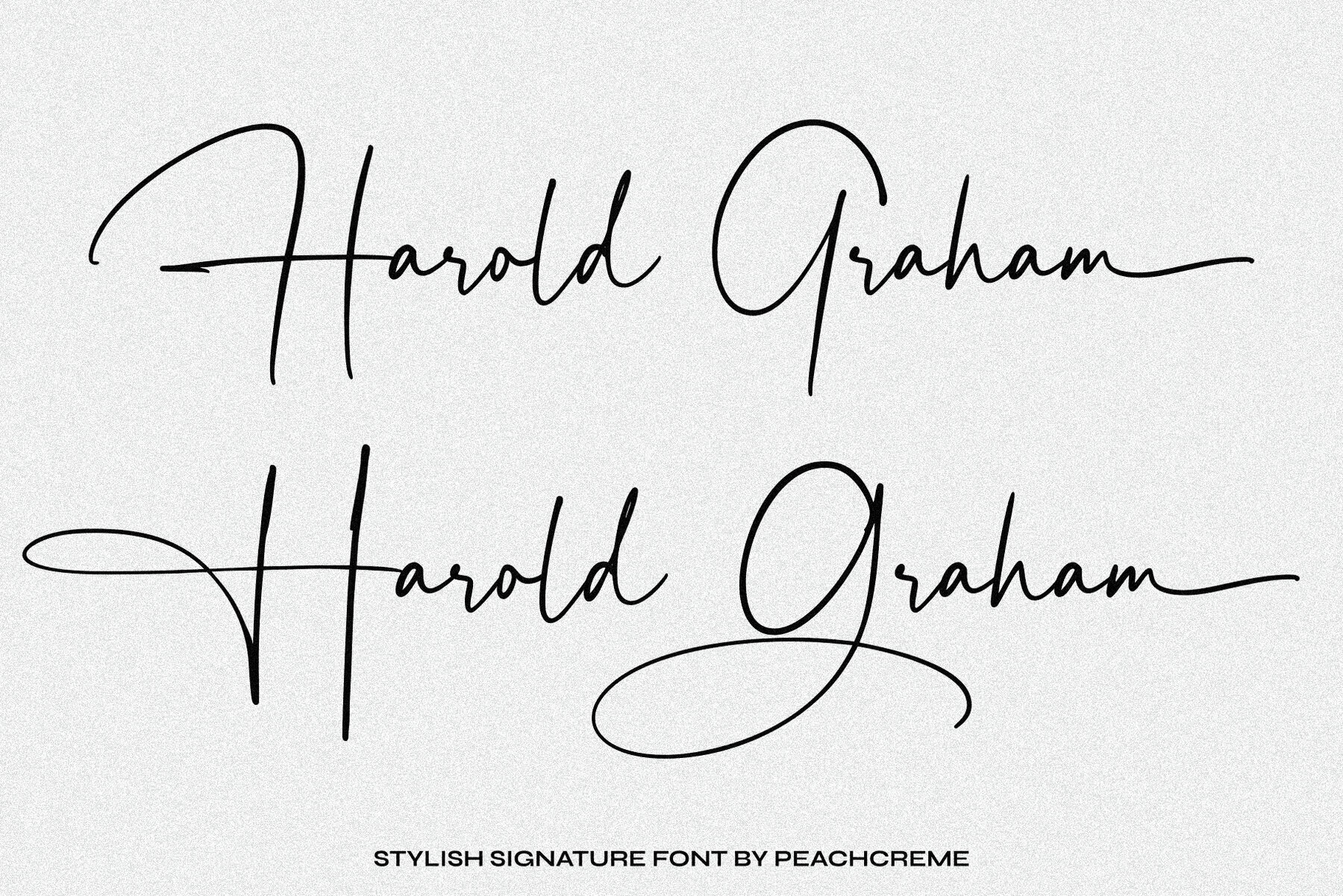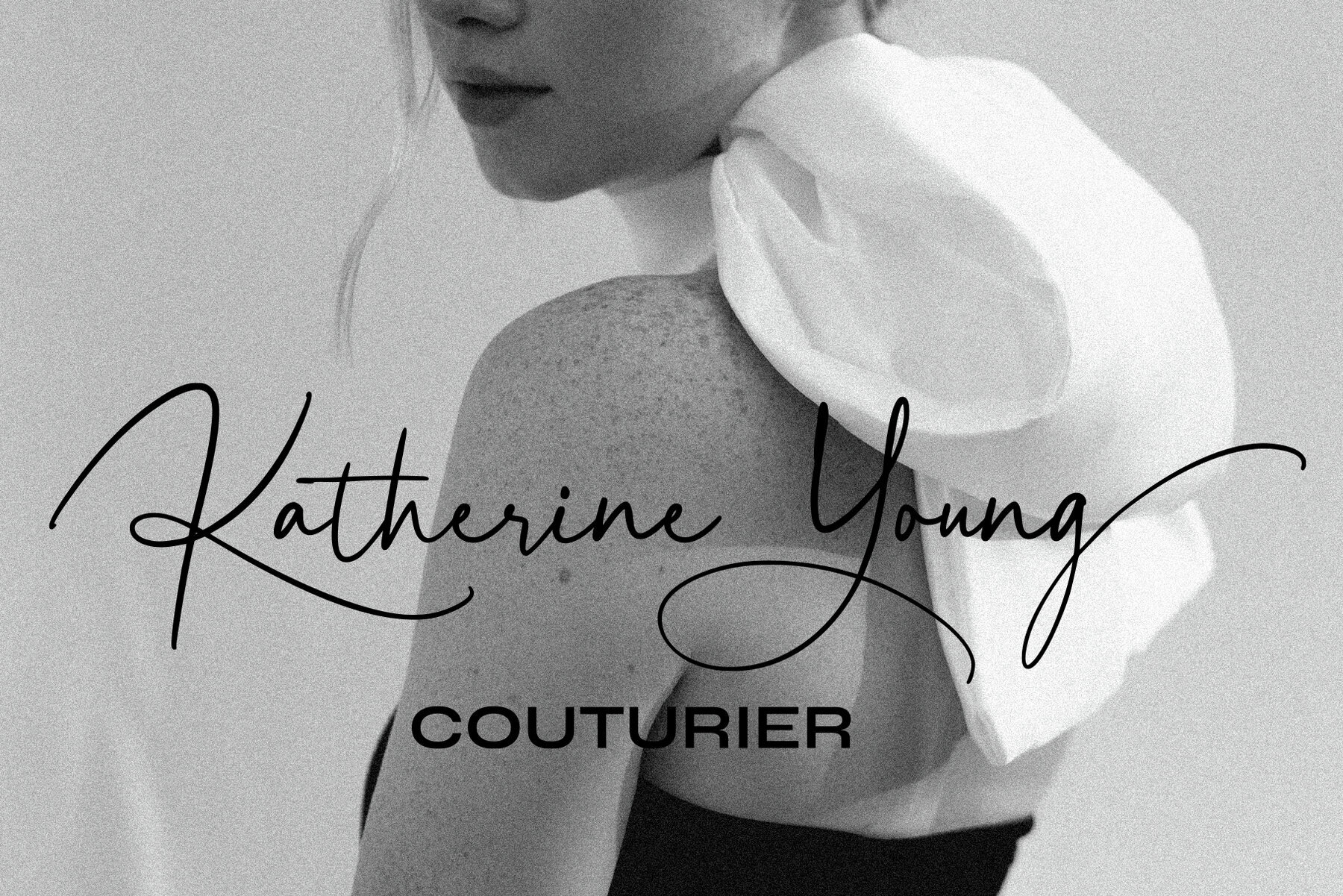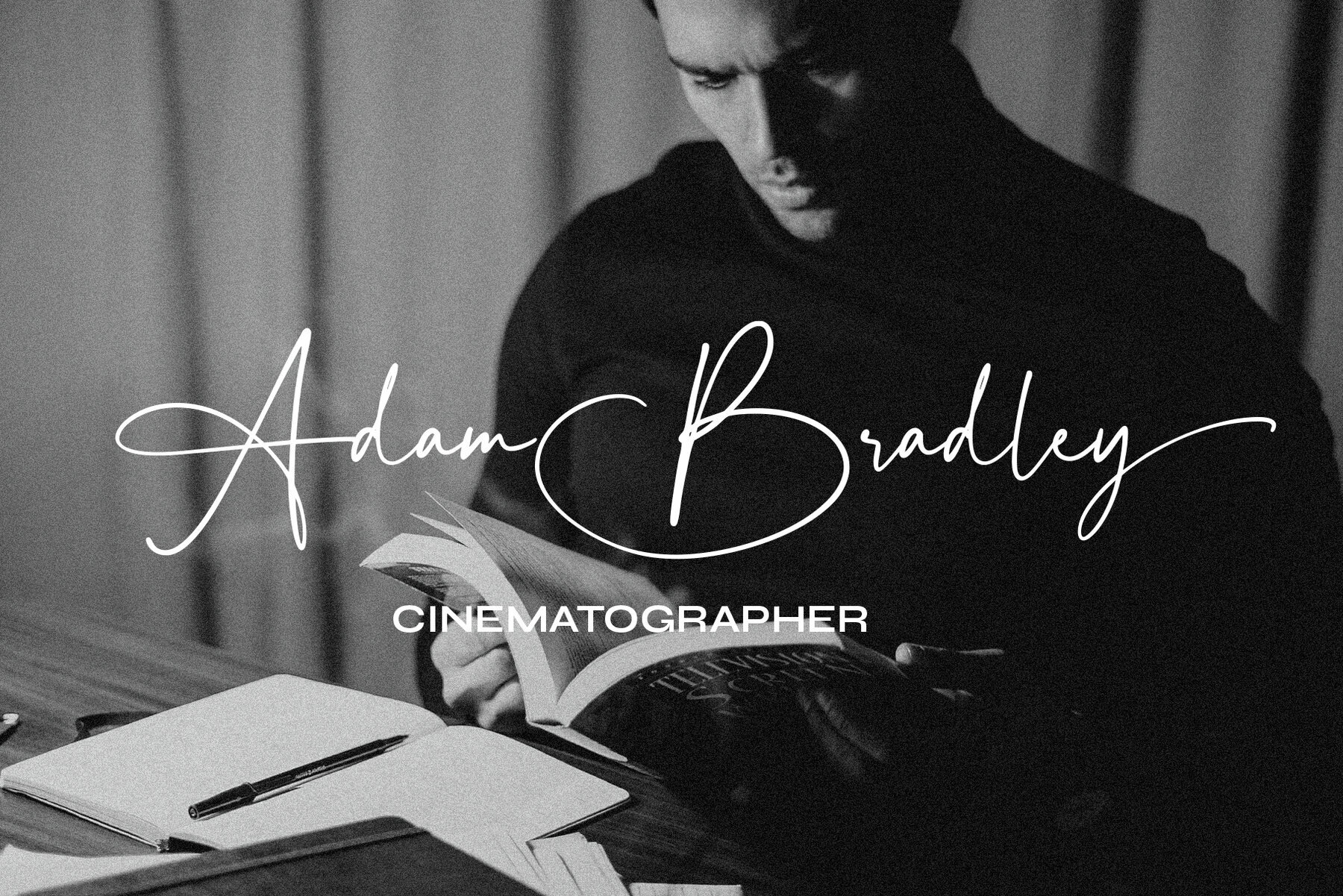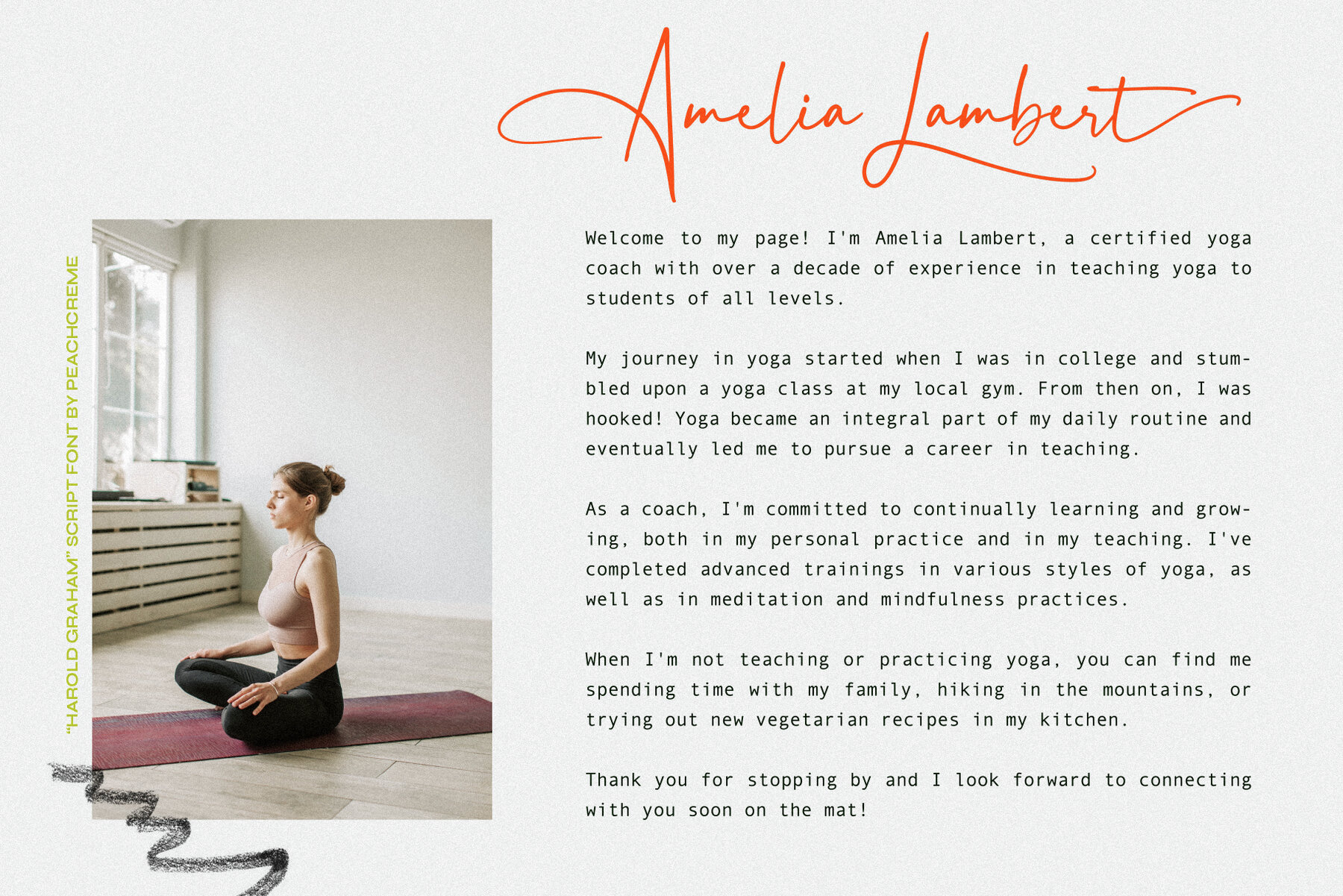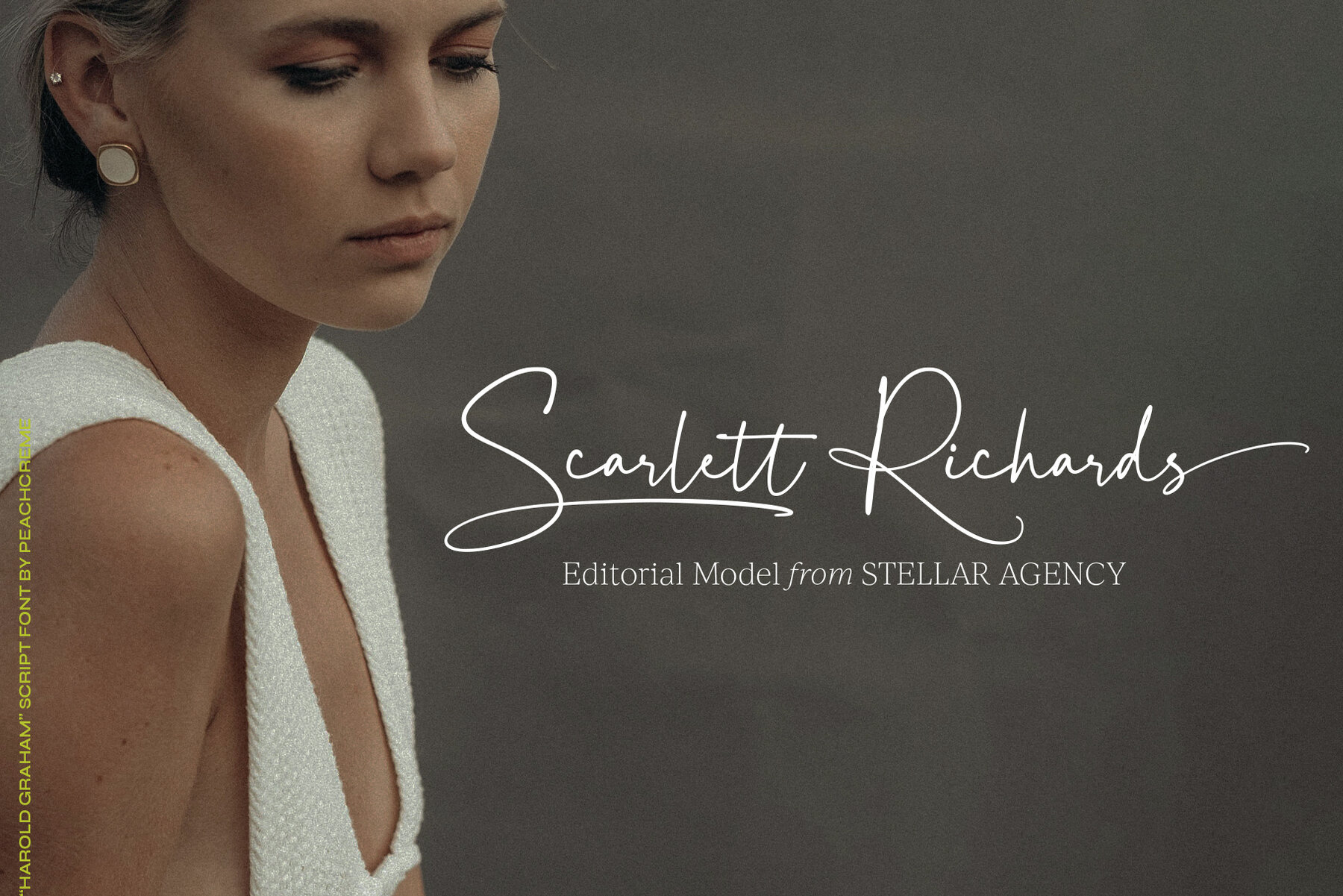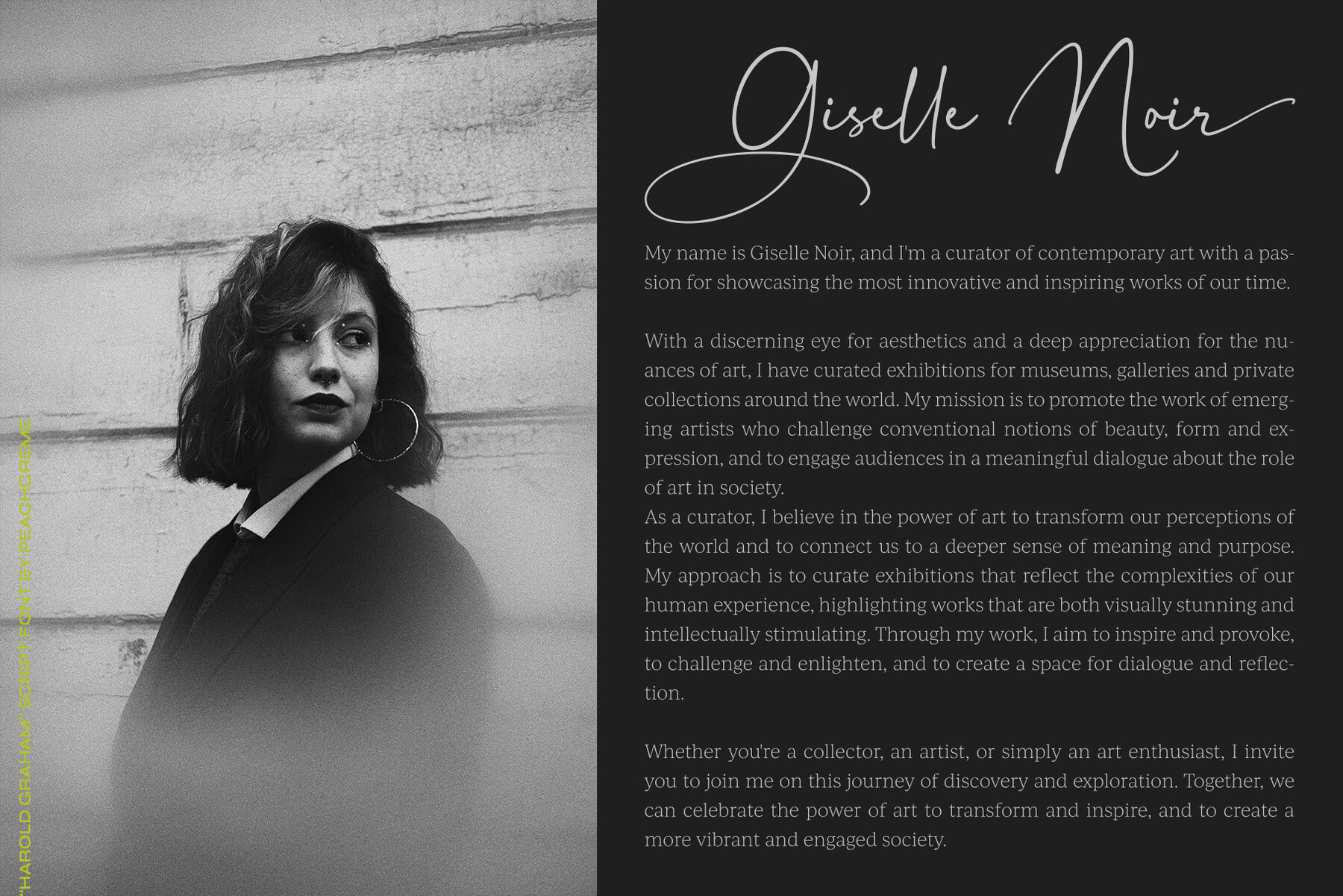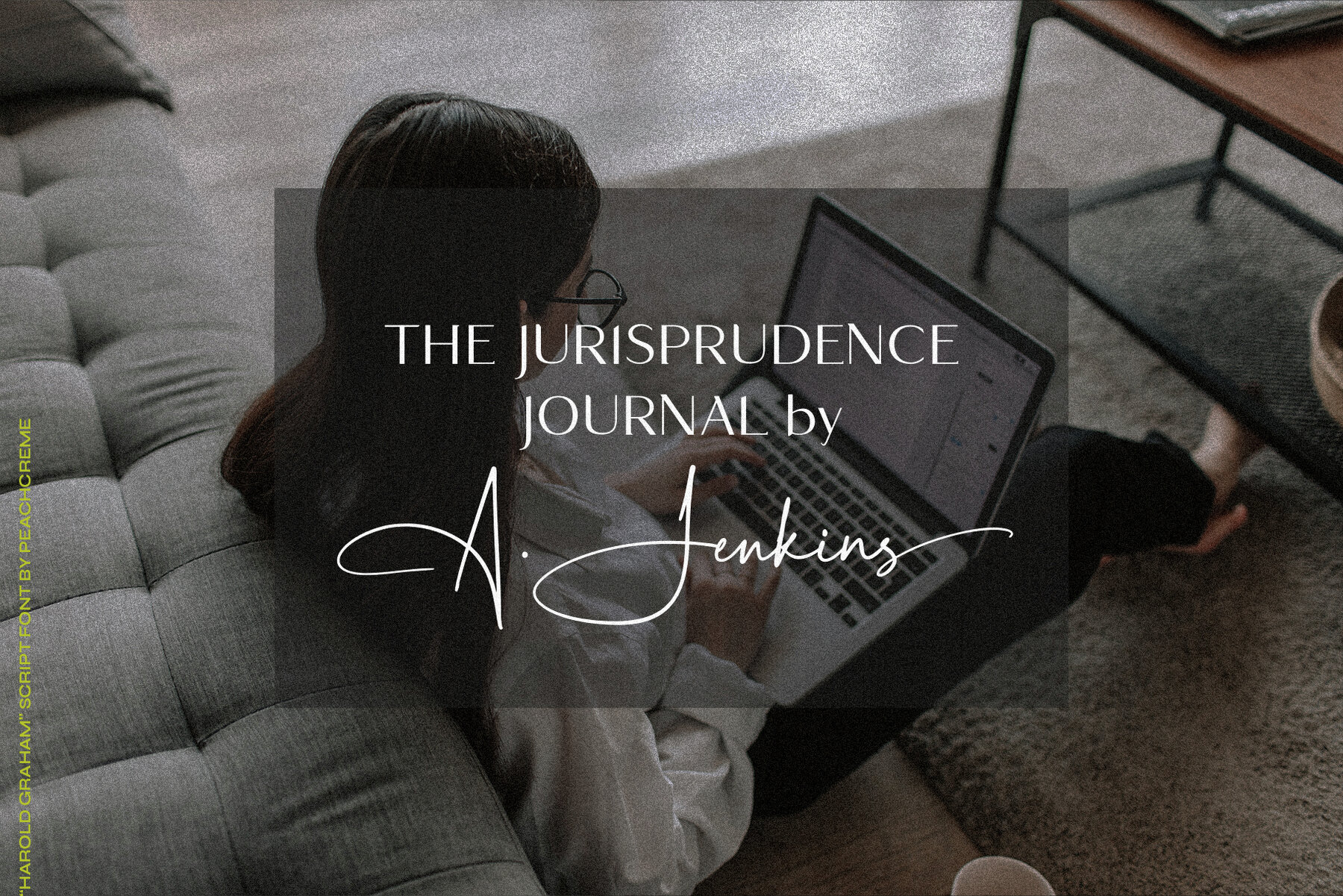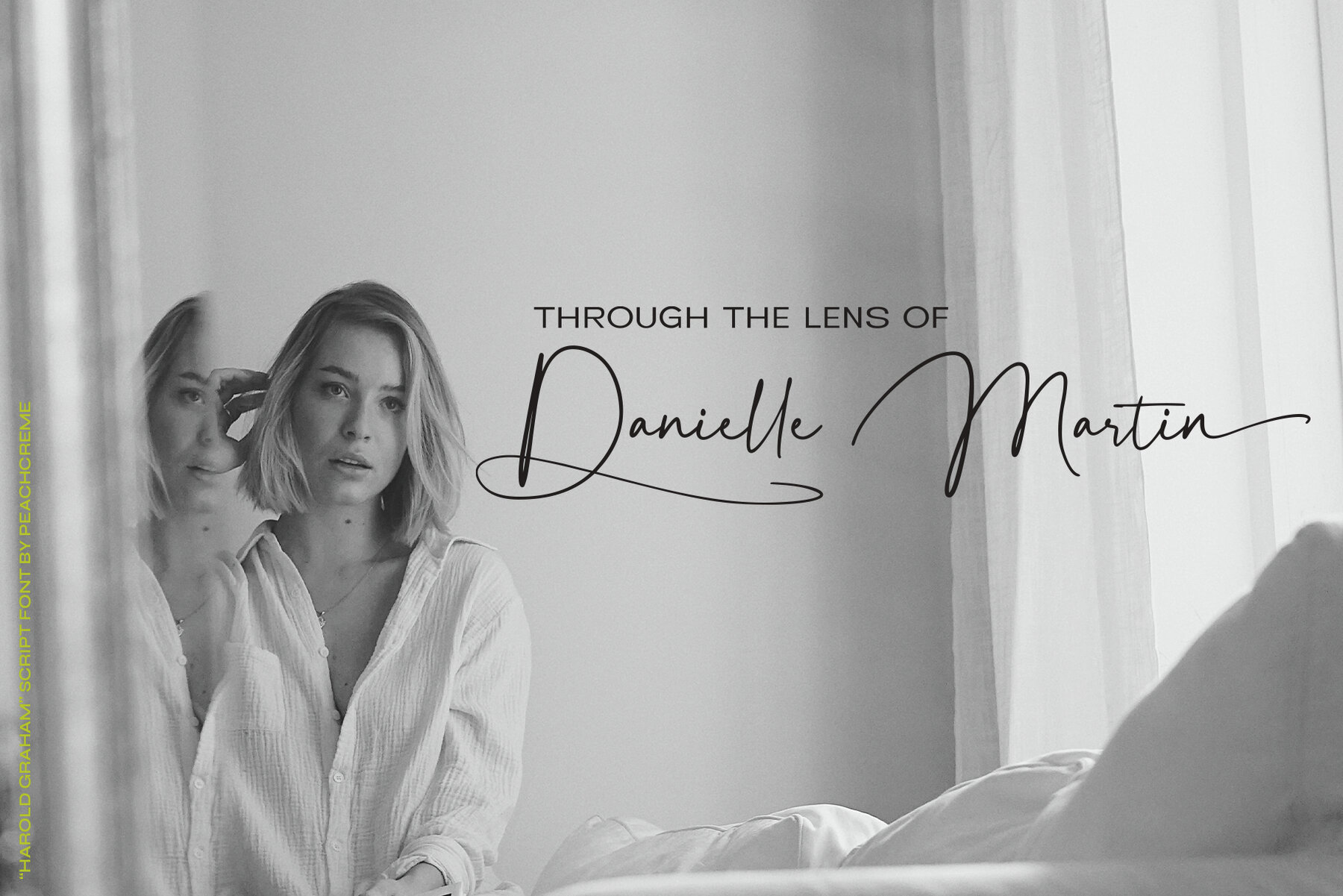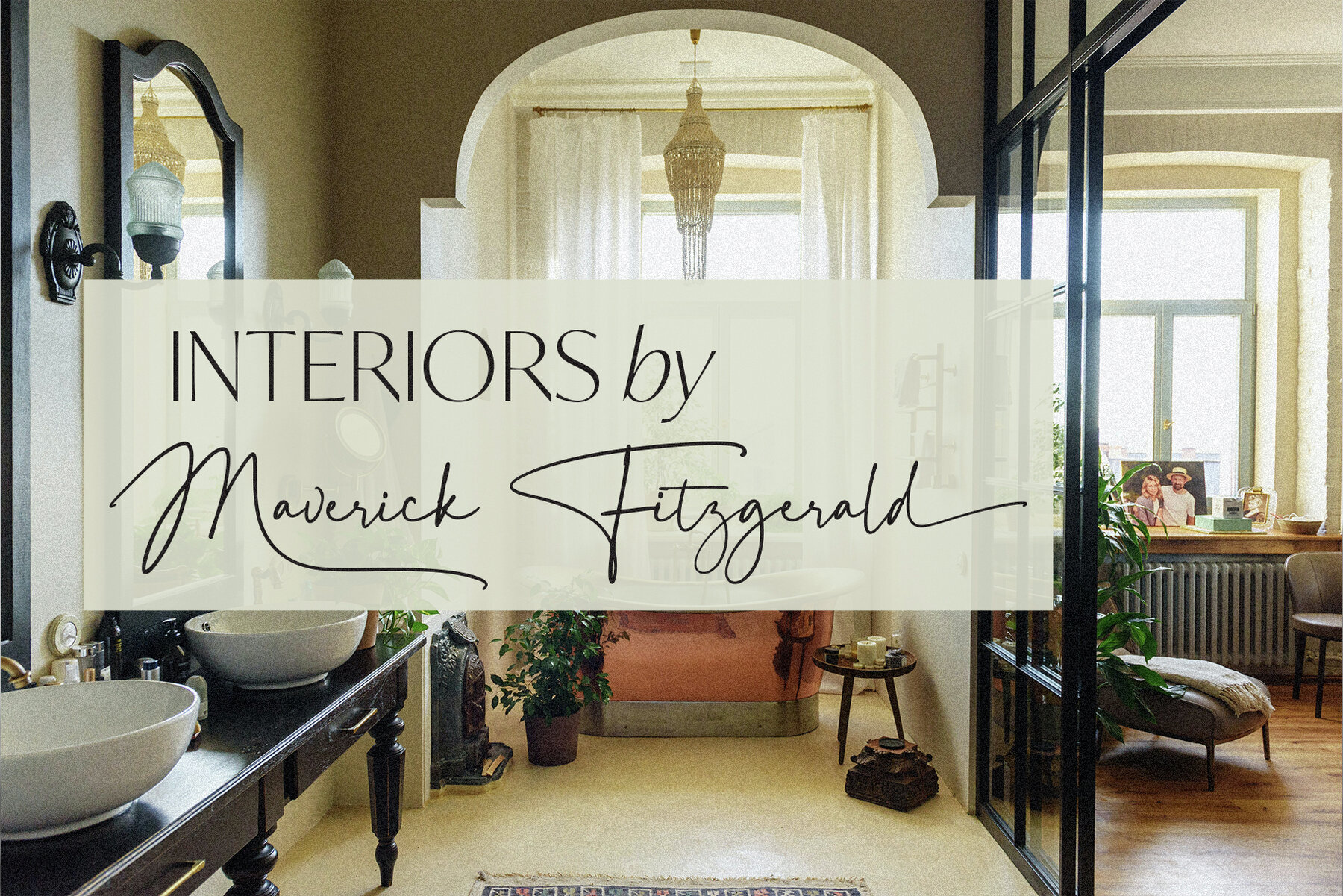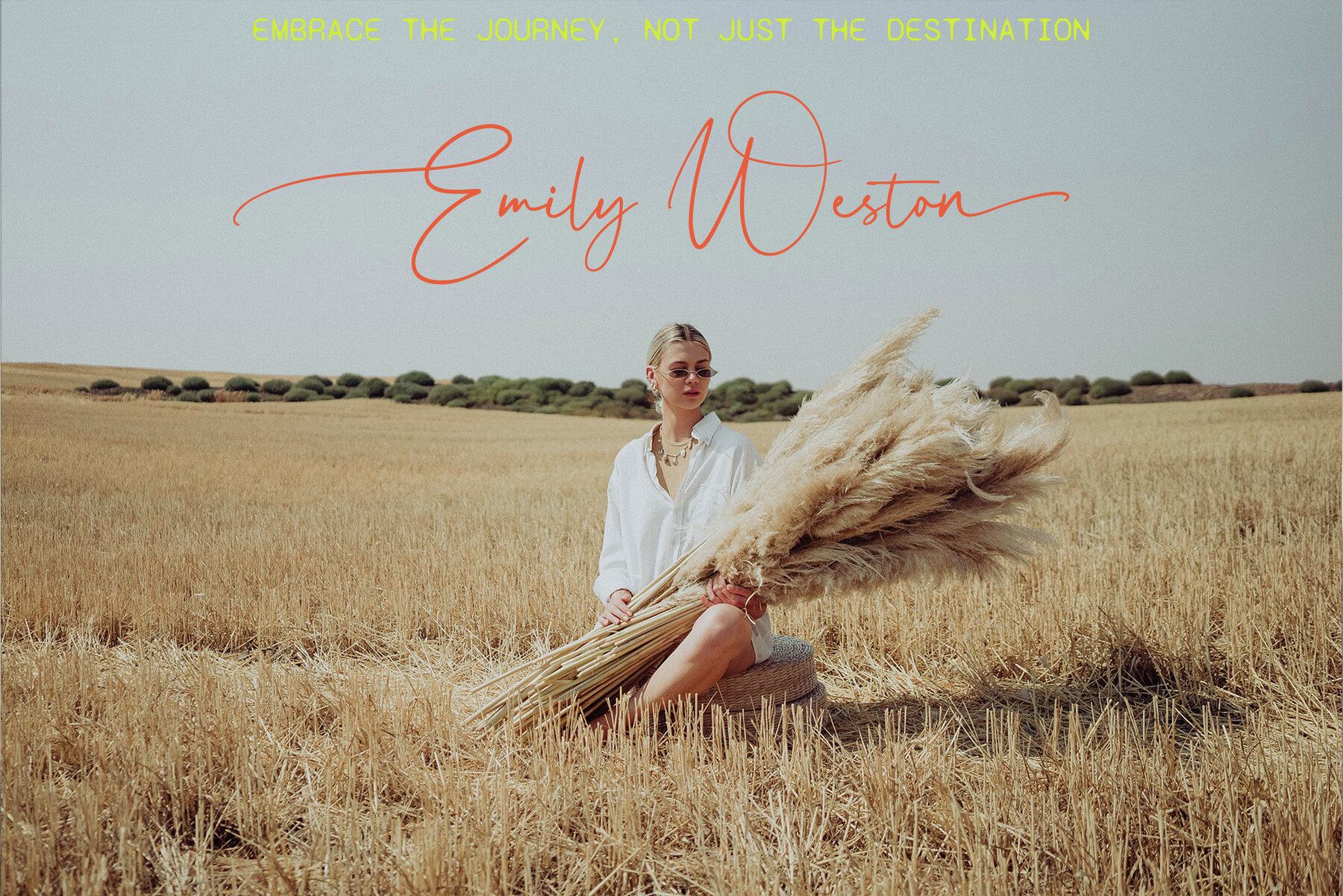
Harold Graham Font
Harold Graham
"Harold Graham" is a meticulously designed font that exudes subtle elegance and sophistication. Featuring unique alternative uppercase letters and swash-ending lowercase forms, this typeface provides a tasteful way to customize any text. Its versatility makes it suitable for diverse design needs, from premium invitations to refined branding materials. This font strikes a balance between style and practicality, inviting an appreciation of its intricate details while conveying a sense of understated sophistication.